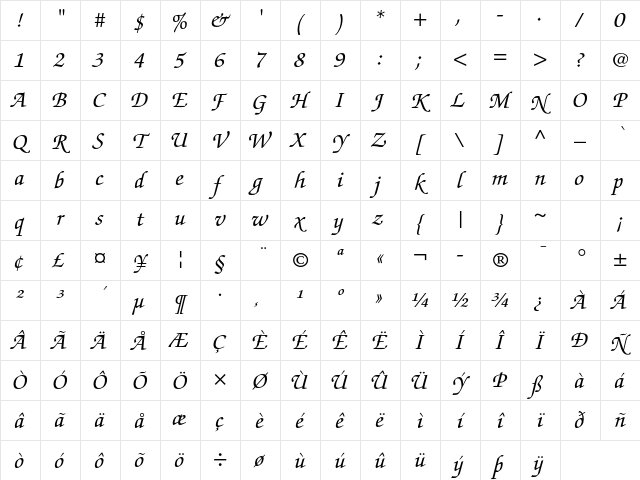
ITC Zapf Chancery Std Italic
Designer: Hermann Zapf
Design Context for ITC Zapf Chancery Std
ITC Zapf Chancery Std is a composed and adaptable typeface that performs quietly and consistently across a wide range of design contexts. The slanted form adds forward momentum and visual energy.